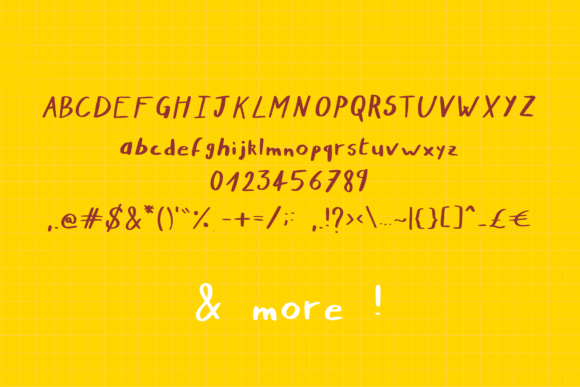
Introduction to Nymera Font
Have you ever been working on a design project, and the perfect font just slips through your fingers? It’s like trying to find the perfect puzzle piece – frustrating, yet thrilling when you finally get it. For designers, the right font can elevate a project from good to great, and that’s exactly what Nymera Font is here to do.
As a free download, Nymera Font is an incredibly valuable resource for any creative project. With its playful and modern design, it’s perfect for adding a touch of whimsy to your next design. One of the standout features of Nymera Font is its transparent background, making it incredibly versatile and easy to use.
Whether you’re working on a branding project or a fun graphic design piece, Nymera Font is sure to bring a high-quality touch to your work. So why settle for just any font when you can have Nymera Font – a true game-changer for designers looking to add some personality to their projects.
Key Features of Nymera Font
- High-quality, professional font suitable for creative projects and design resources.
- Features a transparent background, making it easy to overlay on images and designs.
- Comes in a range of styles and weights, allowing for versatility in design applications.
- Designed with a modern aesthetic, making it perfect for contemporary design projects.
Honest Review: Nymera Font
I recently had the chance to work with the Nymera Font, and I must say it’s been a great addition to my design resource library. The high quality of the font is immediately noticeable, with crisp and clean lines that make it perfect for a wide range of creative projects.
One of the things that really stands out about the Nymera Font is its versatility. It’s available for free download, which is a huge bonus for designers on a budget. Plus, it comes with a transparent background, making it easy to use in a variety of design contexts.
- High quality and crisp lines
- Only available in a limited range of font weights
Overall, I’m really impressed with the Nymera Font. It’s a great design resource that I’ll be using again and again for my creative projects.
Tips for Getting the Most Out of Nymera Font
Experiment with different font sizes, colors, and styles to achieve the desired effect. Use the Nymera Font in combination with other design elements to create a unique and eye-catching design. Don’t be afraid to try new things and push the boundaries of what’s possible with this versatile font.
Common Use Cases for Nymera Font
The Nymera Font is perfect for use in creative projects such as logos, business cards, graphics, and presentations. Its unique design and high-quality features make it an ideal choice for designers looking to add a touch of sophistication and elegance to their work.
Alternatives to Nymera Font
Ostrich Sans is a high-quality, sans-serif font ideal for creative projects that require a modern and clean design. It features a transparent background and can be easily customized for various design applications. When to use: corporate branding, digital signage, and product packaging. Comparison to Nymera Font: Ostrich Sans offers a more minimalist approach, whereas Nymera Font has a more elegant and sophisticated feel. It’s available for free download, making it a valuable design resource.
Does the Nymera Font have a transparent background?
Yes, the Nymera Font includes a transparent background option, allowing you to easily integrate it into your design project. This feature is particularly useful when working with layered designs or complex backgrounds.